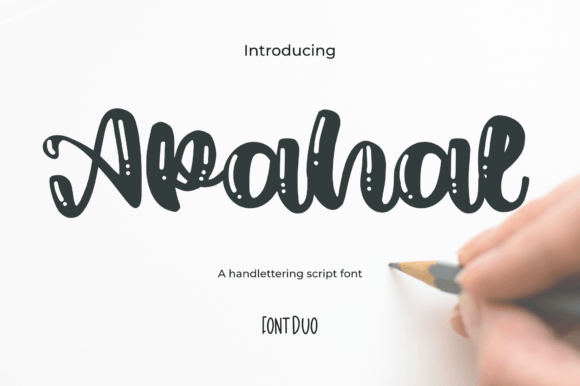
Welcome to the world of Apahal Font, a captivating display typeface that radiates fun, playfulness, and endless possibilities. Created by the talented CocoDesign, this breathtaking font duo embodies creativity, making it the ultimate choice for wedding stationery and countless other projects.
Embark on a typographic adventure with Apahal Font, a symphony of whimsy and charm. Designed with a touch of magic, this versatile font family gracefully adapts to any design concept, transforming your words into delightful works of art.
Picture your wedding invitations, save-the-dates, and thank-you cards adorned with Apahal's enchanting characters. Each letter dances across the page, exuding a playful spirit and evoking heartfelt emotions. Capture the essence of your love story with this font duo, creating cherished memories that will last a lifetime.
Apahal Font's versatility extends beyond wedding celebrations. Let your imagination soar as you explore its endless applications. It effortlessly complements branding, logos, product packaging, social media graphics, and a myriad of creative endeavors. Infuse your designs with a dash of whimsy, a sprinkle of delight, and a whole lot of visual appeal.
Step into the realm of Apahal Font and experience the joy of effortless creativity. This font duo is the key to unlocking a world of unique, eye-catching designs that leave a lasting impression. Embrace the power of self-expression and let Apahal Font elevate your projects to new heights.